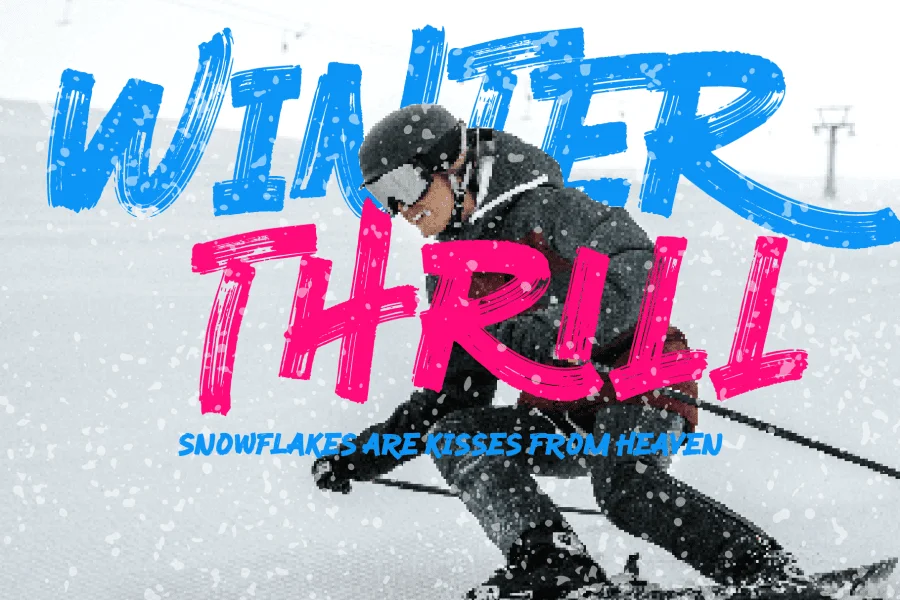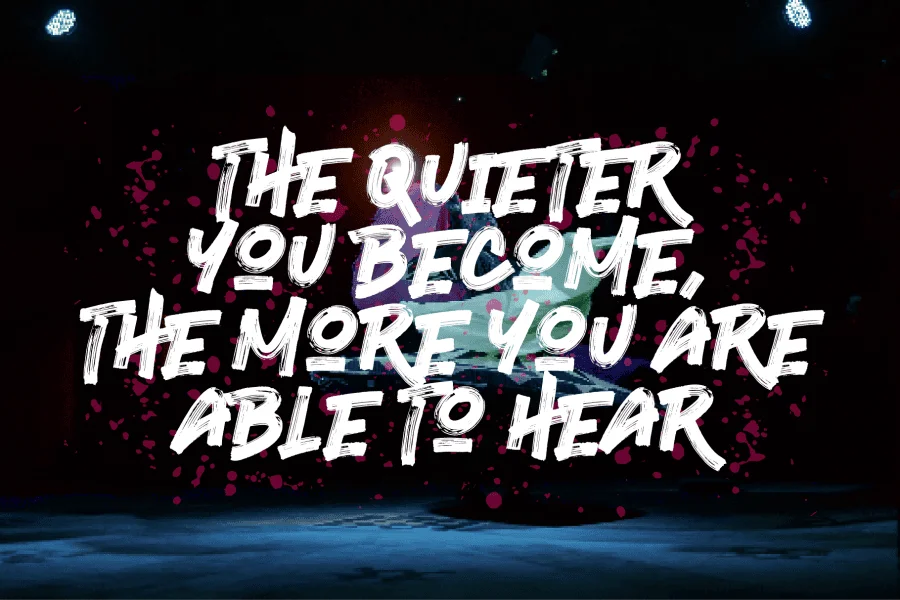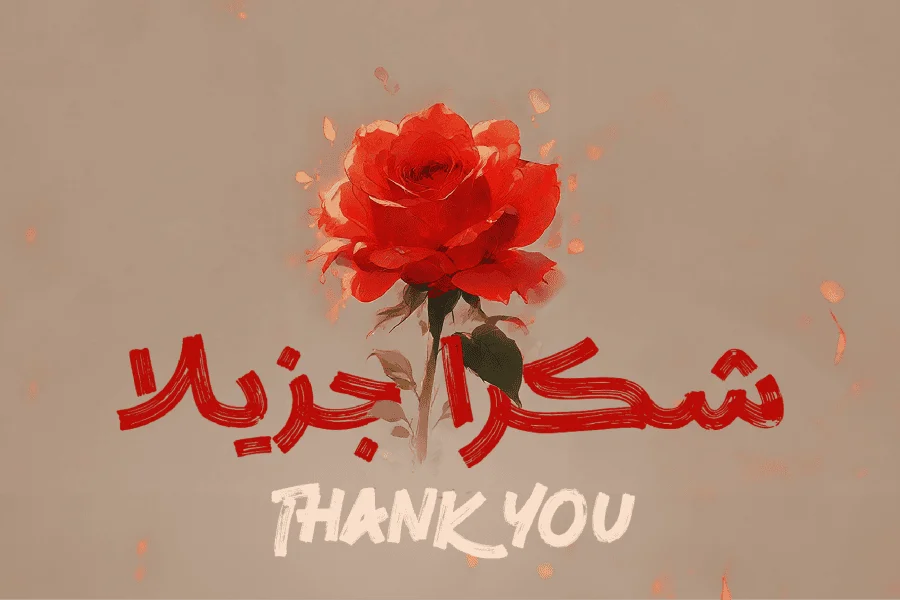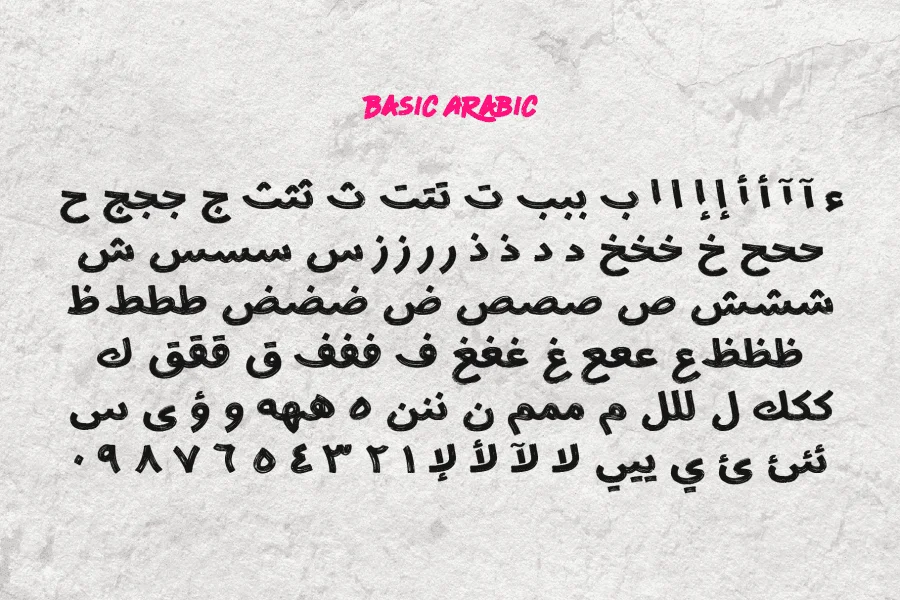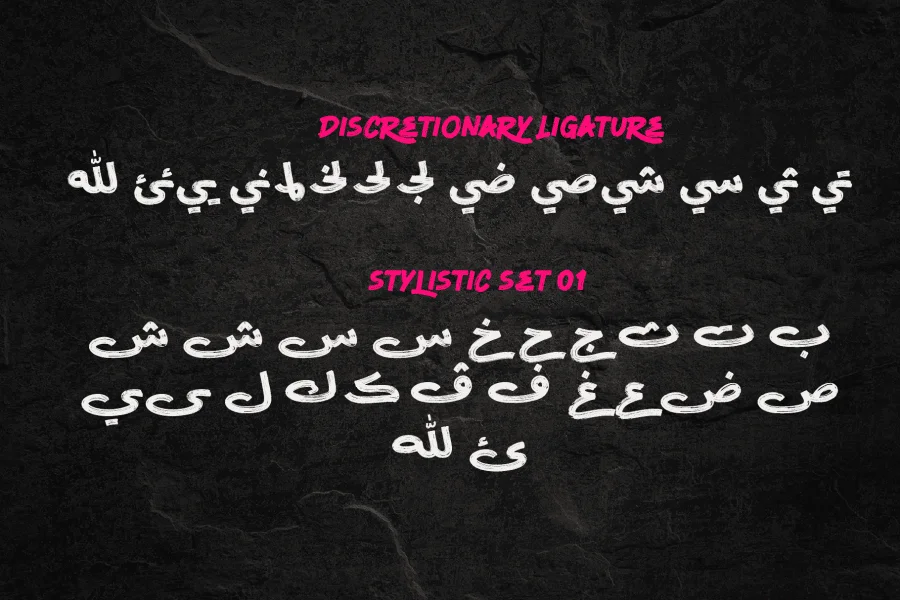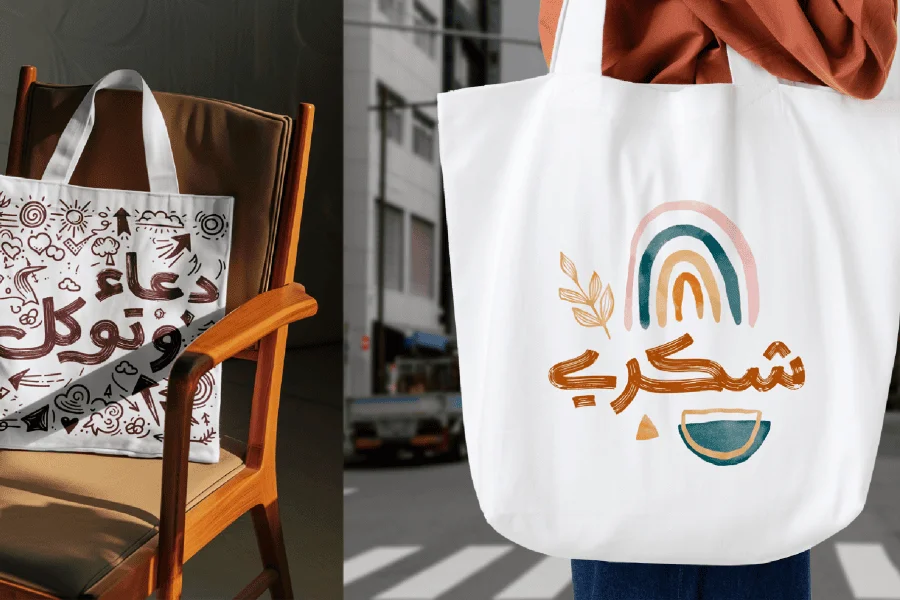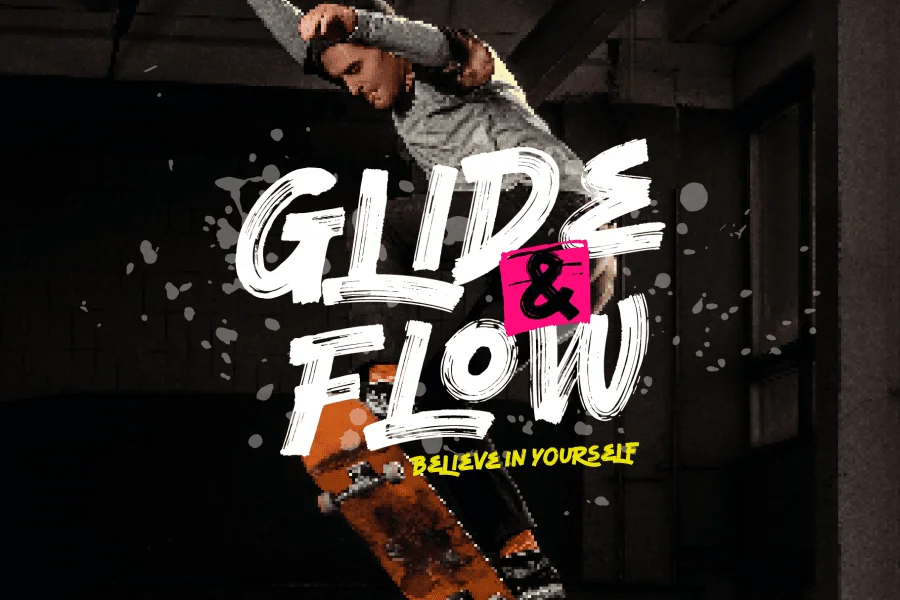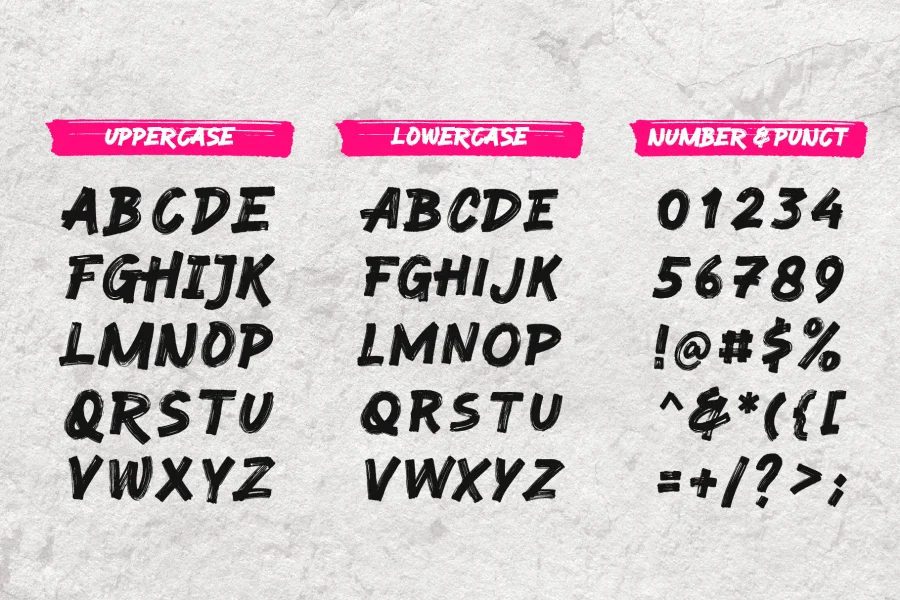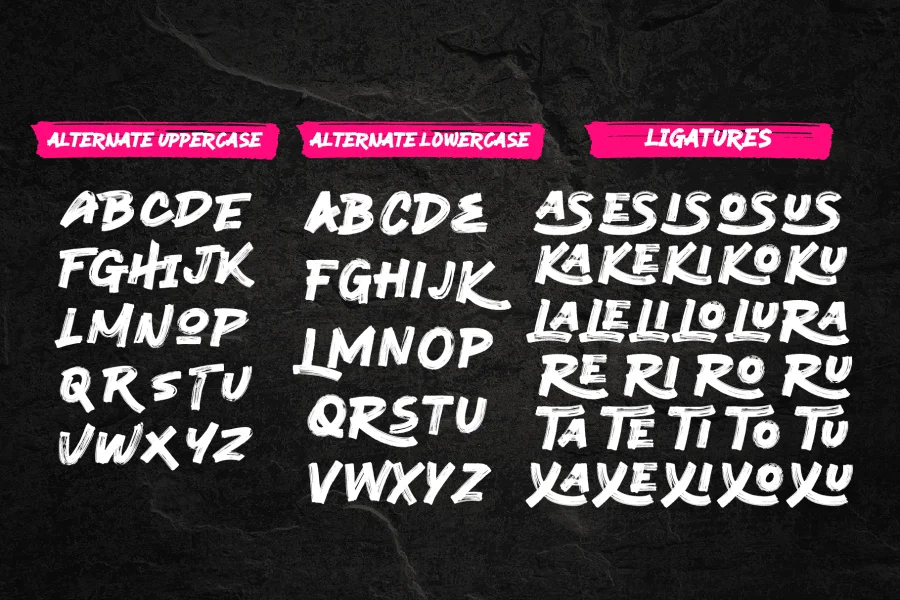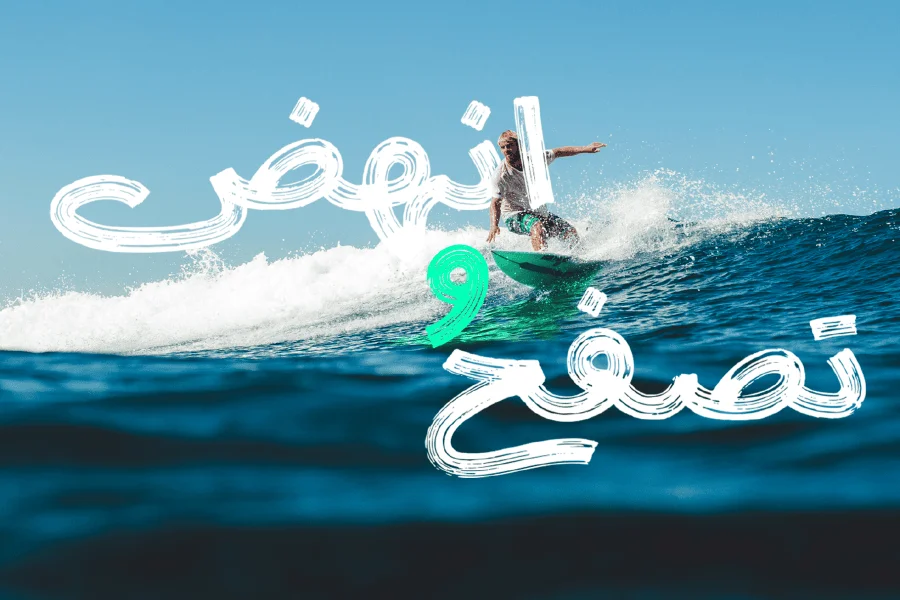
This is update version of Retro Brush Font. Includes an extension of the Arabic script, which enhances its versatility and adaptability for various linguistic and typographic needs. The extension provides additional characters and diacritics, enabling more precise representation of regional dialects and languages that use the Arabic script. This update supports a broader range of scholarly and literary works, ensuring greater accuracy in transcription and publication. It also improves digital communication by offering better support for text rendering on modern devices. Overall, the extension of the Arabic script is a significant advancement for linguists, educators, and the global community that uses this script.
The retro brush handwritten font is a unique design that captures the essence of old charm with its dry brush stroke style. This unusual design technique gives the typeface a lovely feel and fluidity, allowing it to stand out in any design project. This font’s letters have a real, hand-painted feel to them, which adds warmth and personality that computer typefaces typically lack.
One of the most notable features of this retro brush font is its multitude of alternatives and ligatures. These new glyphs improve the handwritten appearance, allowing for more creative and personalized type. Designers can produce a more natural and organic look by integrating alternatives and ligatures, which resemble the intricacies of actual handwriting.
The retro brush handwritten font is ideal for use in header text because of its bold and textured appearance, which can capture quick attention. It is also a good choice for poster designs, since it adds a dynamic and appealing visual aspect that successfully conveys messages. Logos benefit immensely from this font’s distinct style, which adds a personalized touch that can help firms stand out in a competitive market.
In product packaging, the antique brush type lends a handcrafted vibe, making items appear more artisanal. It looks great on clothing, giving t-shirts, tote bags, and mugs a unique and stylish appearance.
Furthermore, the retro brush handwritten font is ideal for Poster, greeting cards, and social media graphics, where its personalized touch can create a strong emotional connection. Whether used in digital or print media, this font brings a touch of retro elegance and artistic charm.